Lovely Fonts for Valentines Day Graphics
The season of Valentine’s day is here and designers around the world are busy creating graphics related to my favorite day in the whole year. So I had to make a post related to 14th Feb and here it is.
A collection of free fonts for creating designs related to Valentine’s Day, such as greeting cards, posters, seasonal promotional advertisements and you know, rest of designing stuff.
Rose Water
Crushed Out Girl
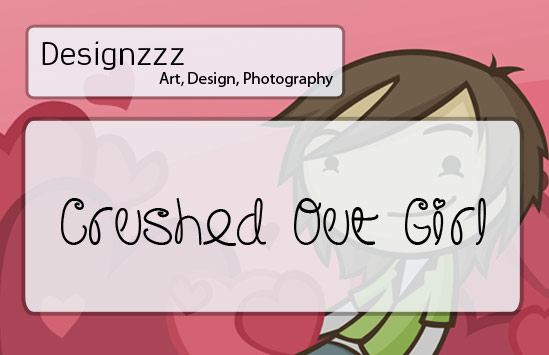
JLR Pawrty Hearty
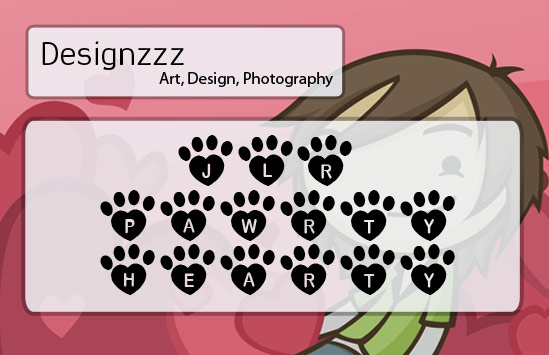
Linda’s Lament
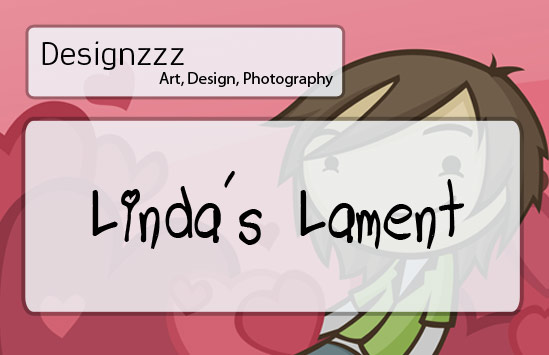
Queen of Hearts
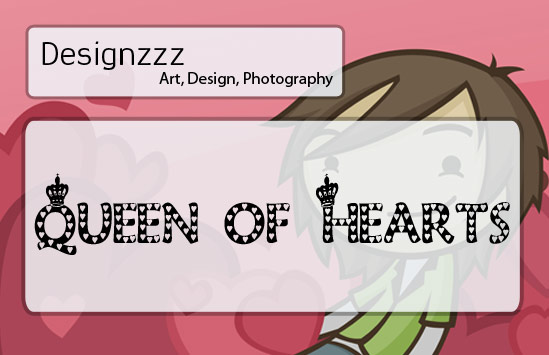
Katzcatz KG
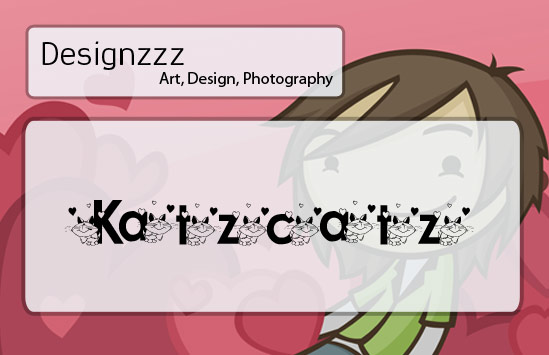
Love Letters
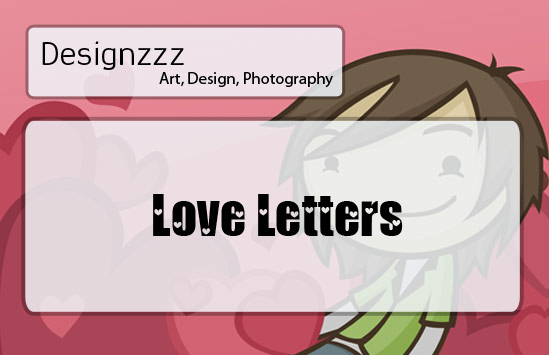
Country Hearts
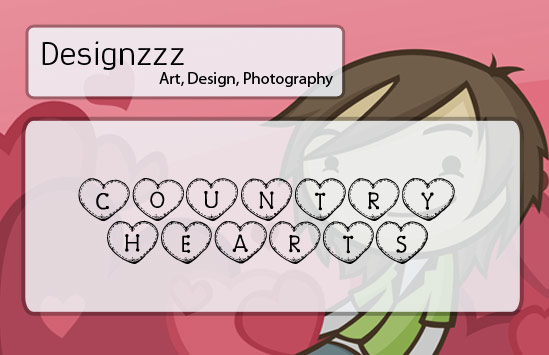
Heart Emboss
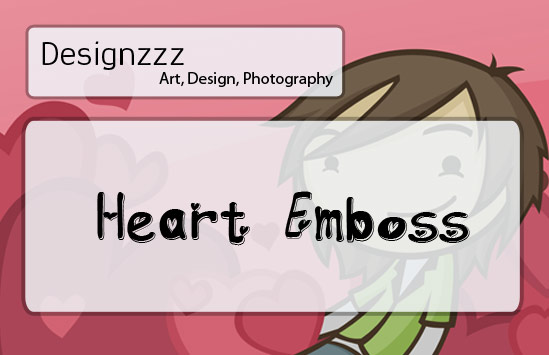
Tenbitesch
Hole-Hearted
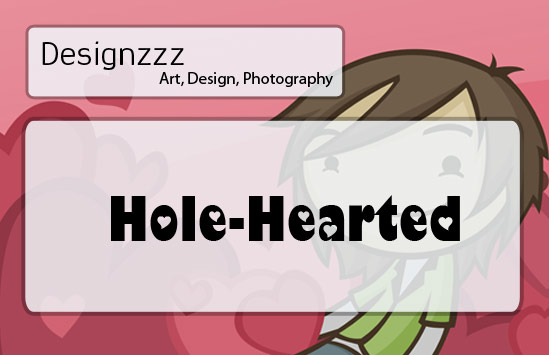
4 My Lover
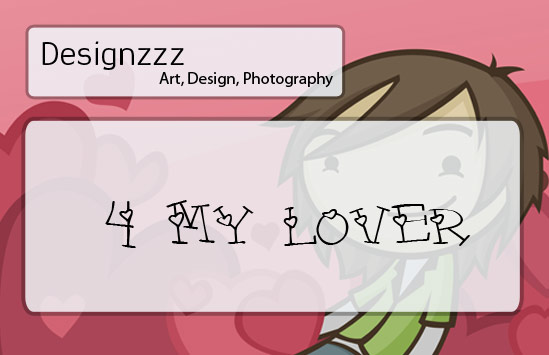
Virgin Love
SC Manipulative Lovers
Sweat Hearts BV
Romantically Yours
Jules Love
Times New Romance
Be My Valentine
Heartz
Heartland
Jellyka – Love and Passion